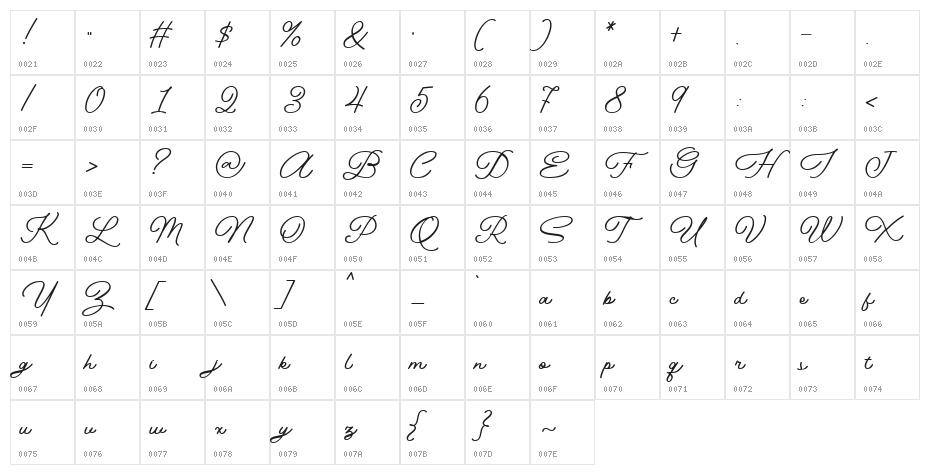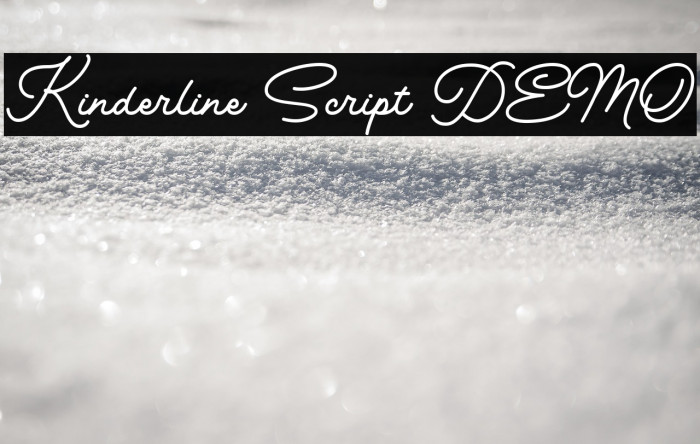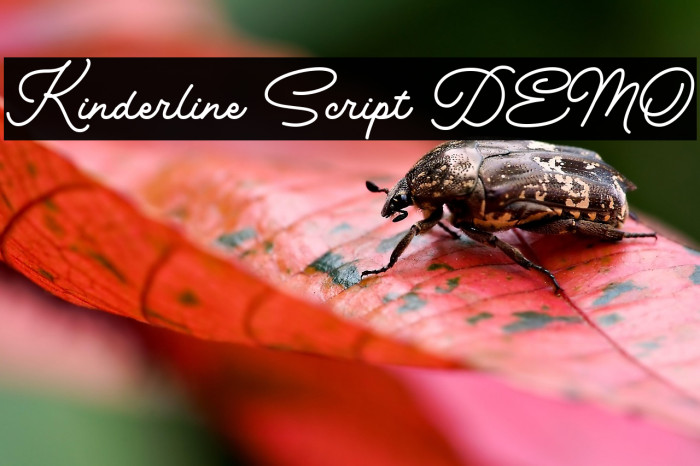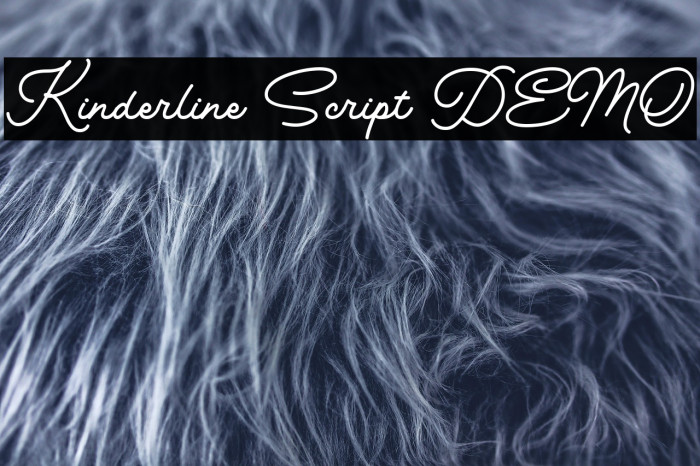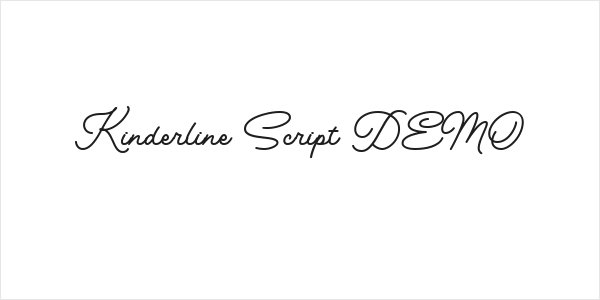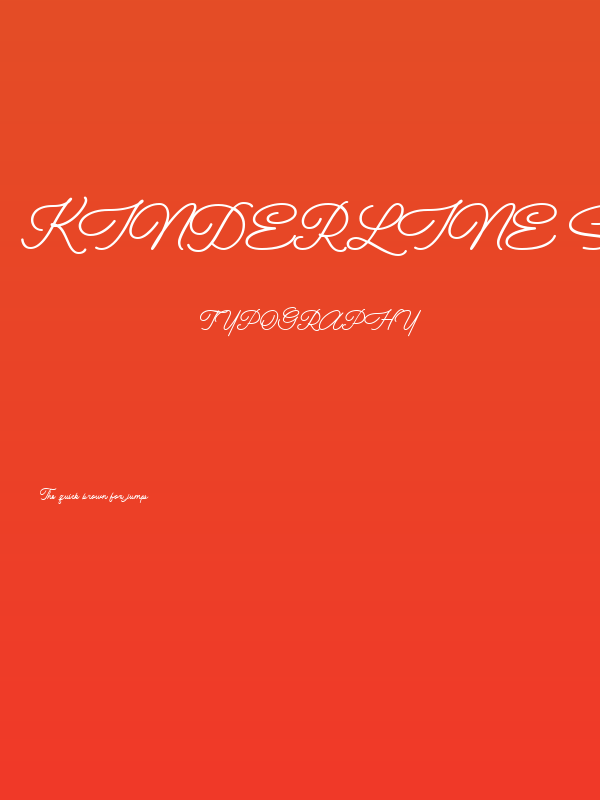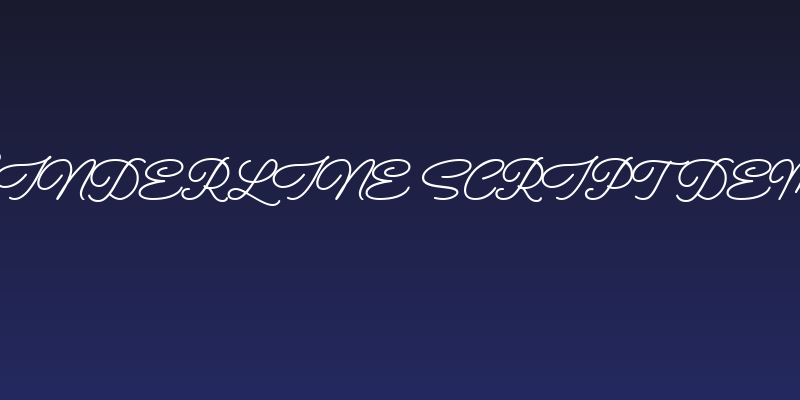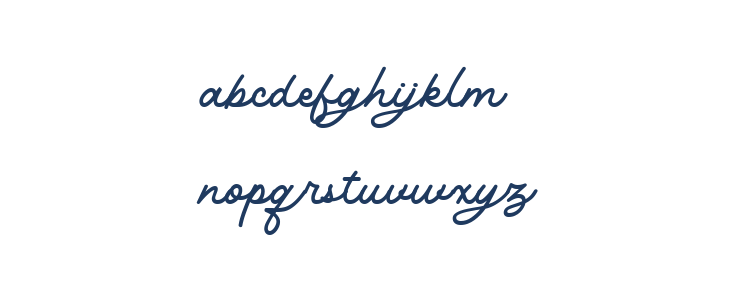
Kinderline Script DEMO Font
Kinderline Script DEMO Description
This elegant script font features a flowing, cursive style that mimics the fluidity of natural handwriting. The uppercase letters are gracefully connected, with sweeping curves and loops that add a touch of sophistication. The lowercase letters maintain a consistent slant, enhancing the overall cohesiveness of the design. Numbers and special characters are crafted with the same attention to detail, ensuring a harmonious appearance across all elements. The font's smooth lines and balanced proportions make it suitable for a variety of applications where a personal, yet refined touch is desired.
| Overall Style | Elegant |
| Use Case | Logos, Invitations, Personal Correspondence |
| Proposed Projects | Ideal for wedding invitations, greeting cards, branding, and elegant packaging. |